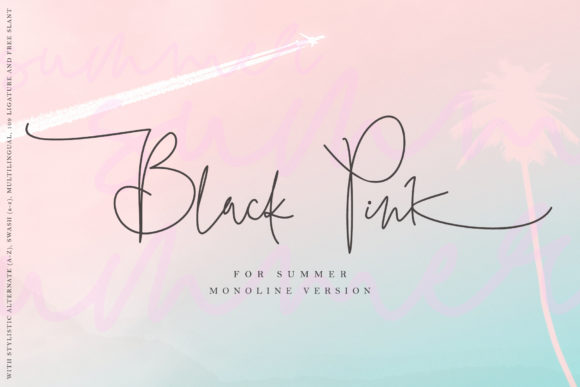
Introducing Black Pink Summer Font, a sensational monoline script font that's the epitome of summertime chic! Crafted by the talented thomasaradea, this light and stunning script is a breath of fresh air, perfect for adding a dose of vibrance to your creative projects.
Picture this: the warm summer breeze rustling through your hair as you bask under the sun, the scent of jasmine filling the air. Black Pink Summer Font embodies this idyllic summer essence, inviting you to infuse your designs with a cheerful, carefree spirit.
But don't let its delicate appearance fool you—this font is as versatile as a summer breeze. Its monoline strokes lend it a clean, modern aesthetic that seamlessly blends with any design style. Whether you're creating wedding invitations, summer posters, fashion flyers, or social media graphics, Black Pink Summer Font effortlessly elevates your designs with a touch of summery sophistication.
It's time to let your creativity bloom and revel in the beauty of summer with Black Pink Summer Font. Dive into a world of endless possibilities and create designs that exude warmth, joy, and the carefree spirit of summertime.